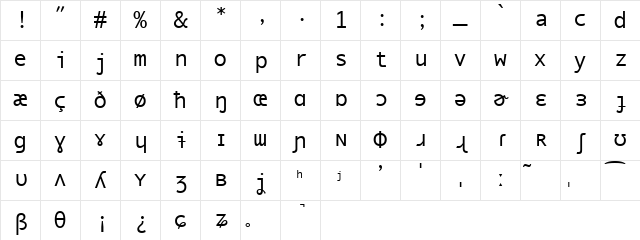
Andale Mono IPA Regular
Foundry: Monotype Typography
Designer: Steven R. Matteson
Design Context for Andale Mono IPA
Andale Mono IPA uses fixed-width spacing throughout, giving it the structured, systematic character associated with coding environments and technical documentation.
Pro Tip: Use Andale Mono IPA with slightly increased line-height for extended reading - fixed-width spacing can feel dense in longer passages without extra breathing room.